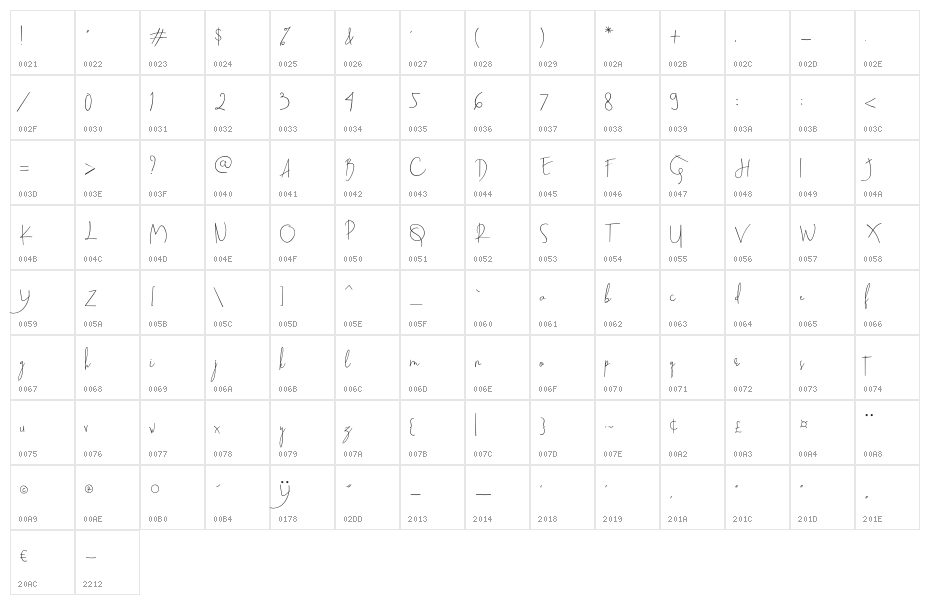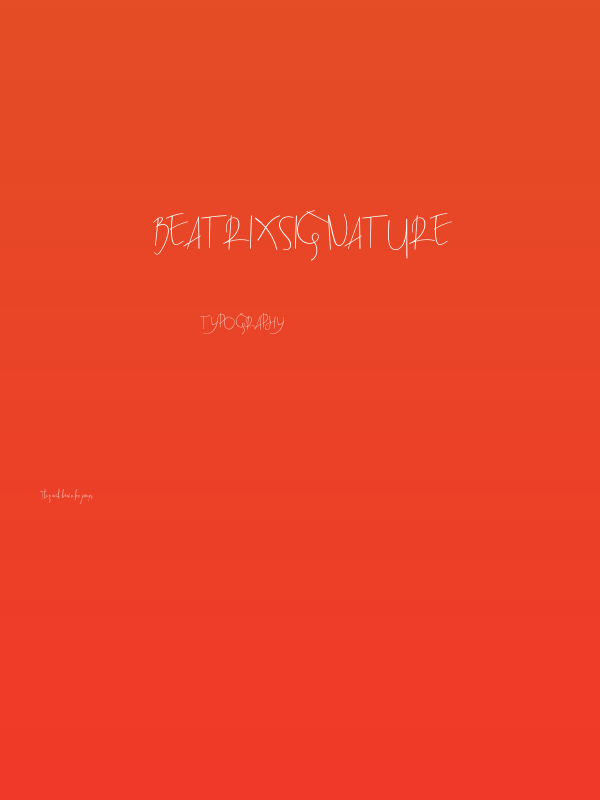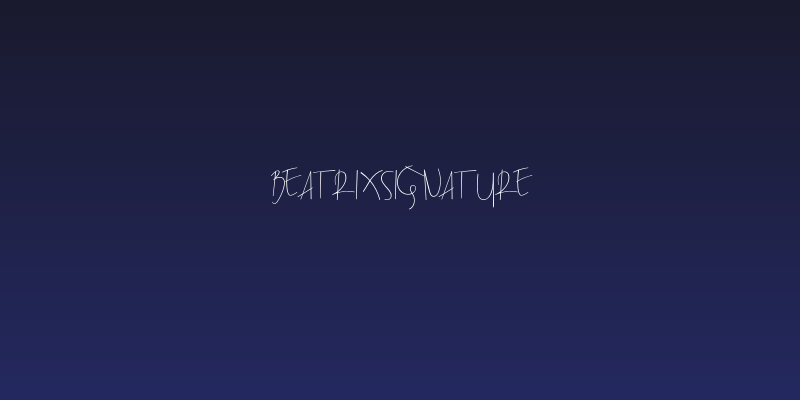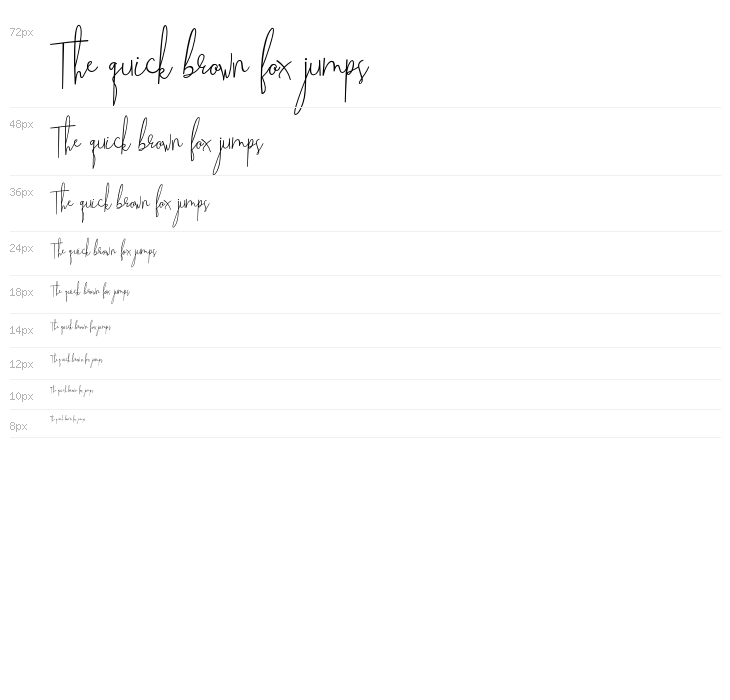
BeatrixSignature Font
BeatrixSignature Description
This font exudes an elegant and artistic flair, characterized by its flowing, cursive style that mimics the fluidity of a handwritten signature. The uppercase letters are tall and slender, with unique flourishes that add a touch of sophistication. The lowercase letters maintain a consistent flow, enhancing the script-like appearance. Numbers and special characters are designed with the same attention to detail, ensuring a cohesive look throughout. The overall design is delicate yet impactful, making it suitable for projects that require a personal and refined touch.
| Overall Style | Elegant, Artistic |
| Use Case | Logos, Invitations, Personal Branding |
| Proposed Projects | Ideal for wedding invitations, personal branding, elegant stationery, and artistic projects. |